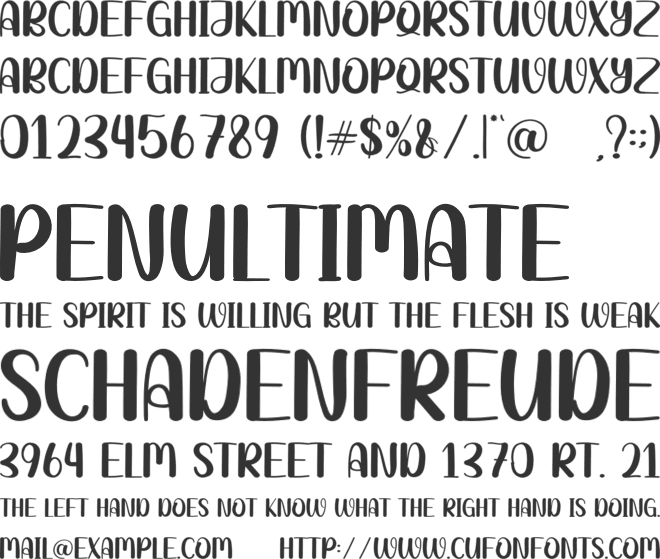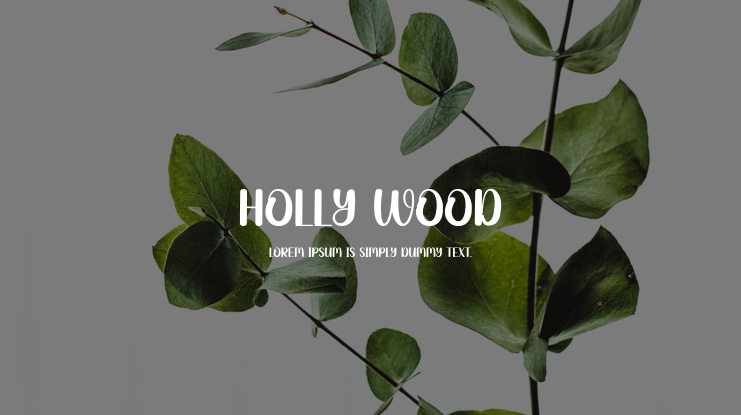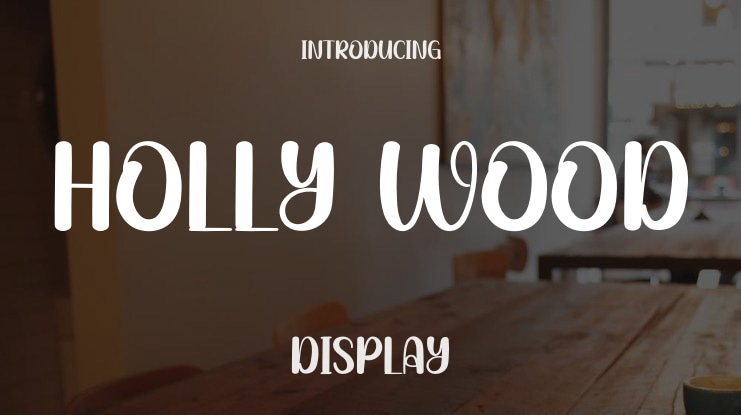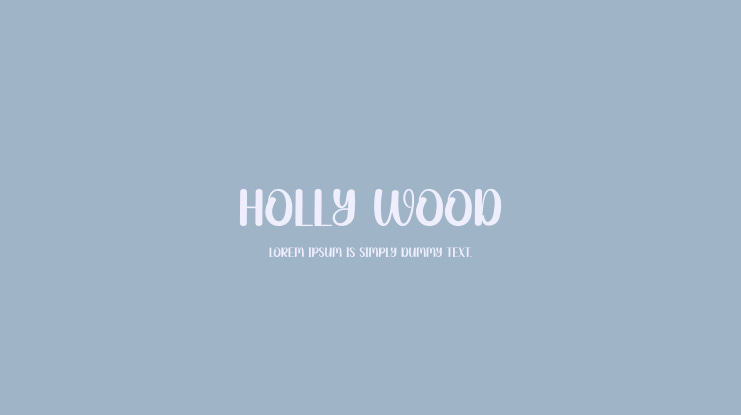
Holly Wood Font
This charming and inviting handwritten display font exudes a delightful and playful vibe. Perfect for creating wedding invitations, greeting cards, or any design requiring a touch of whimsy! For commercial purchases, please visit the website: https://scratchones.com/ Alternatively, for inquiries about custom fonts, font glyph additions, font editing, or other commercial requests, contact us via email at . Thank you!